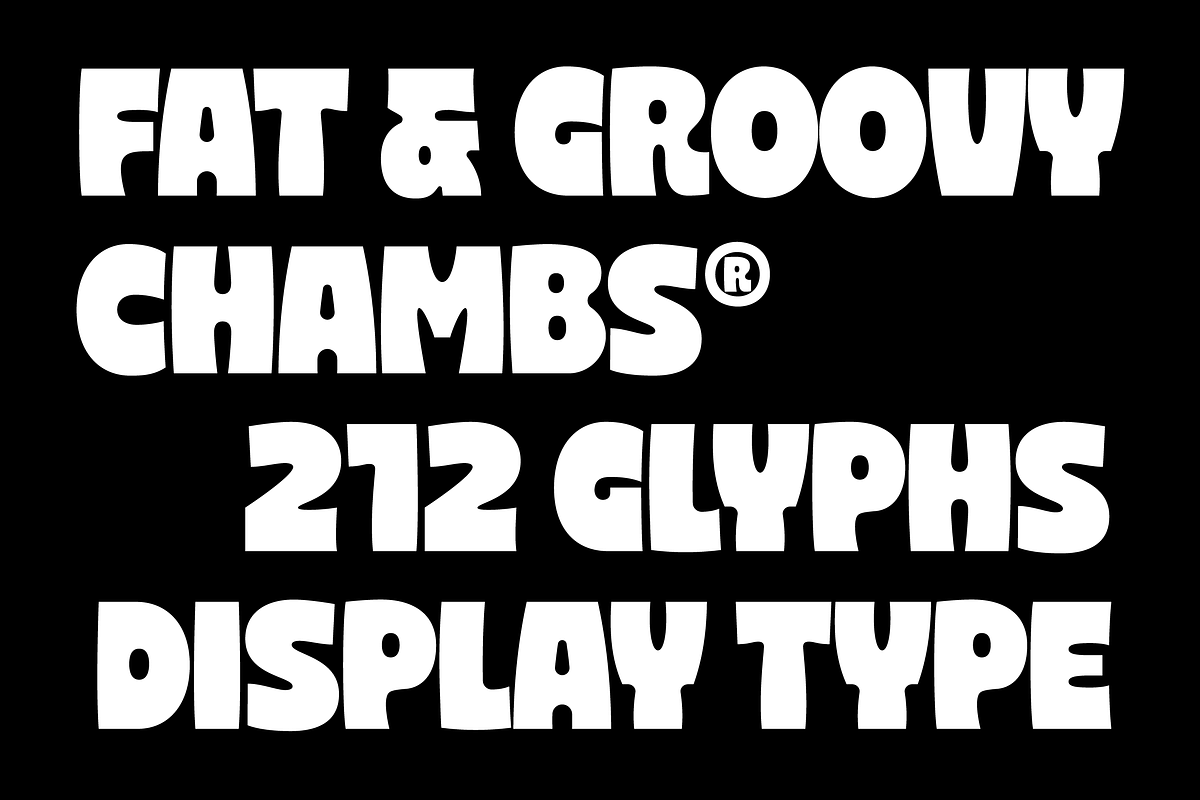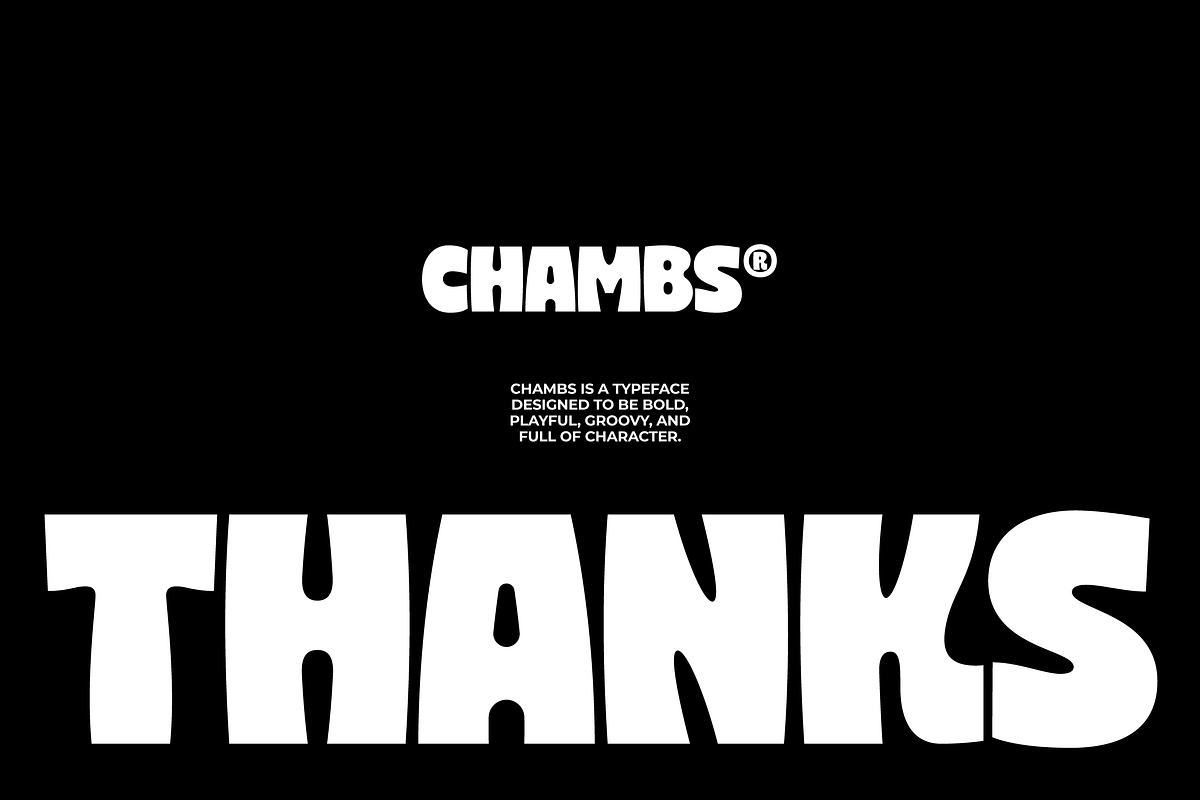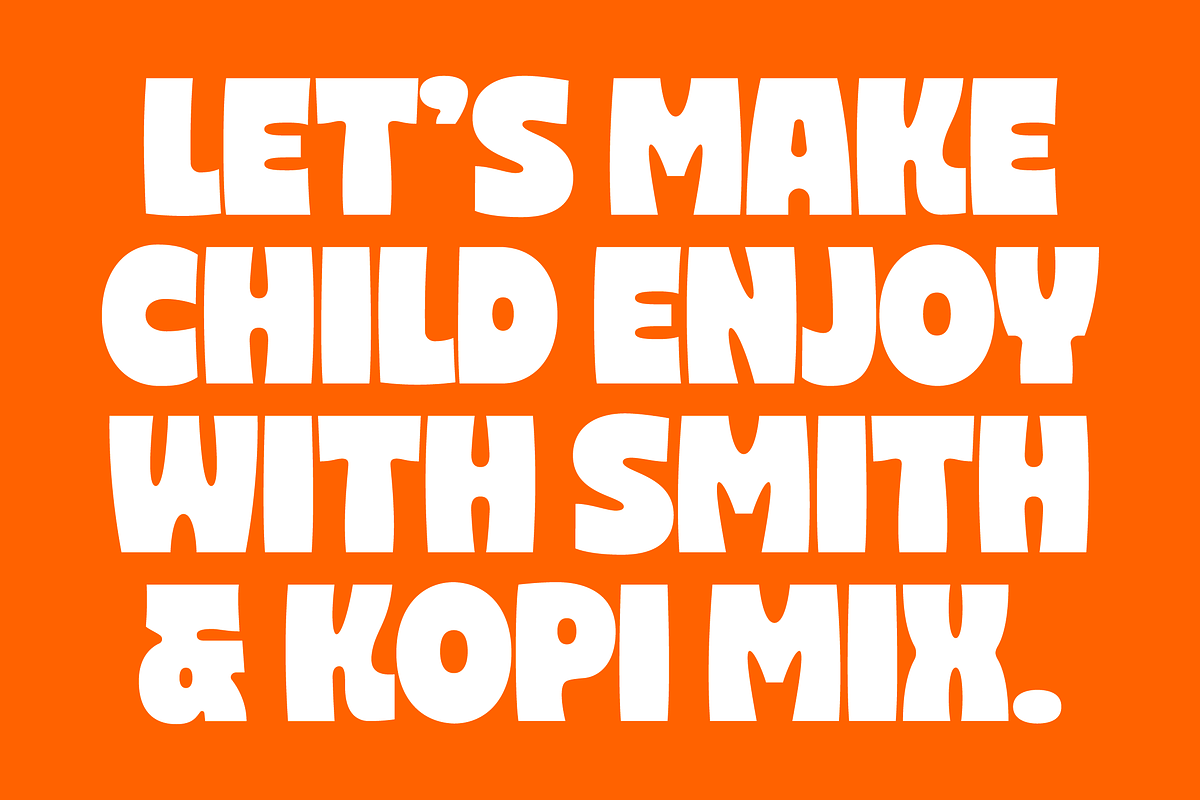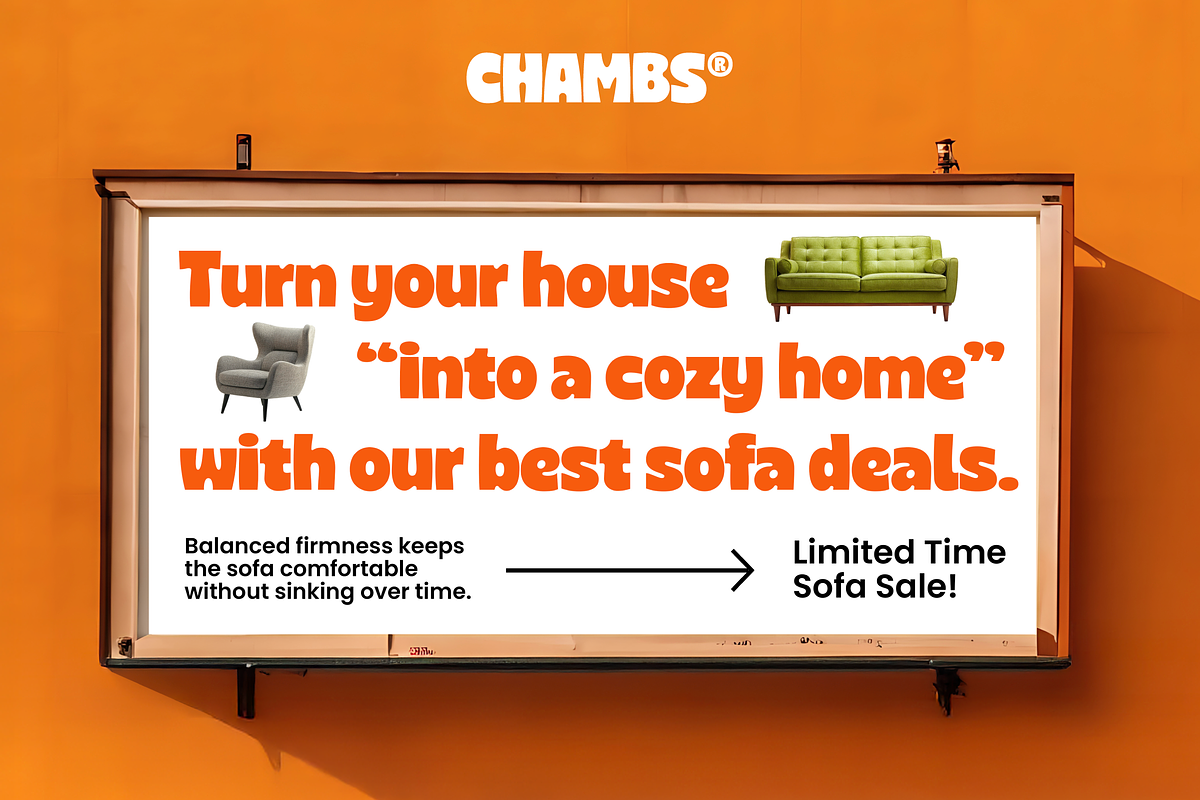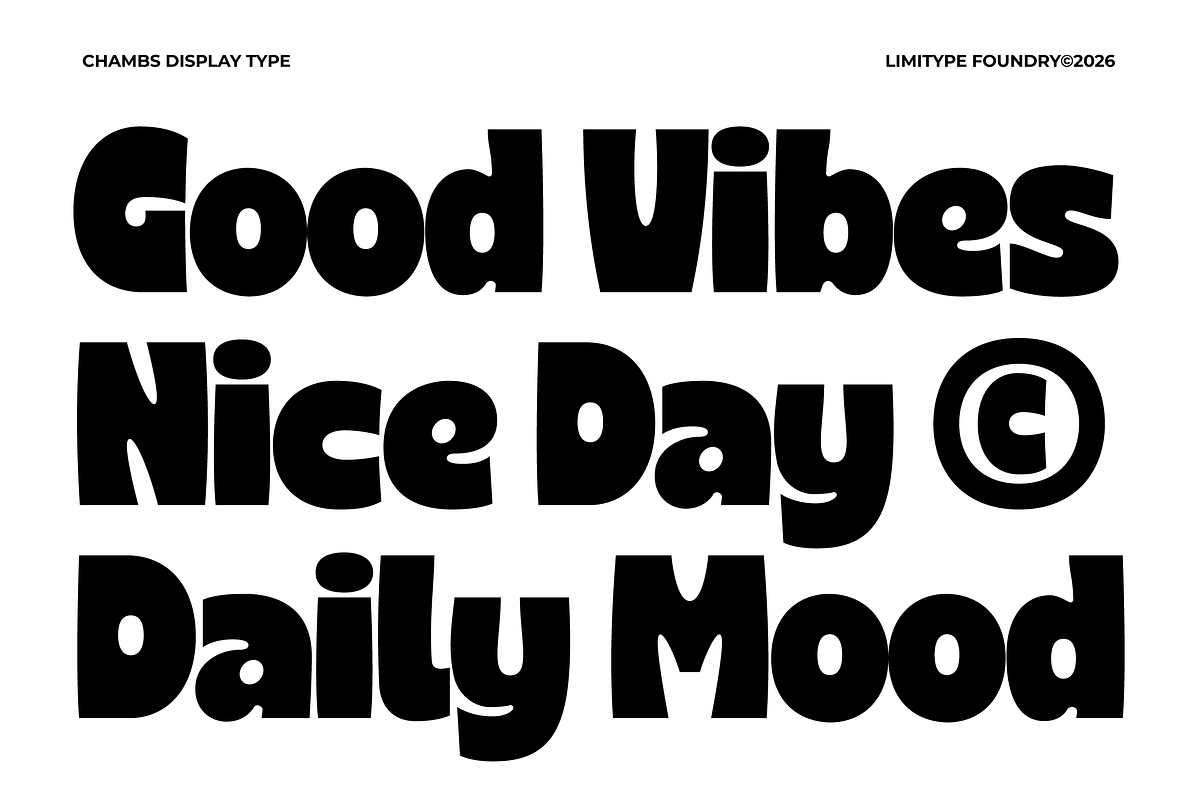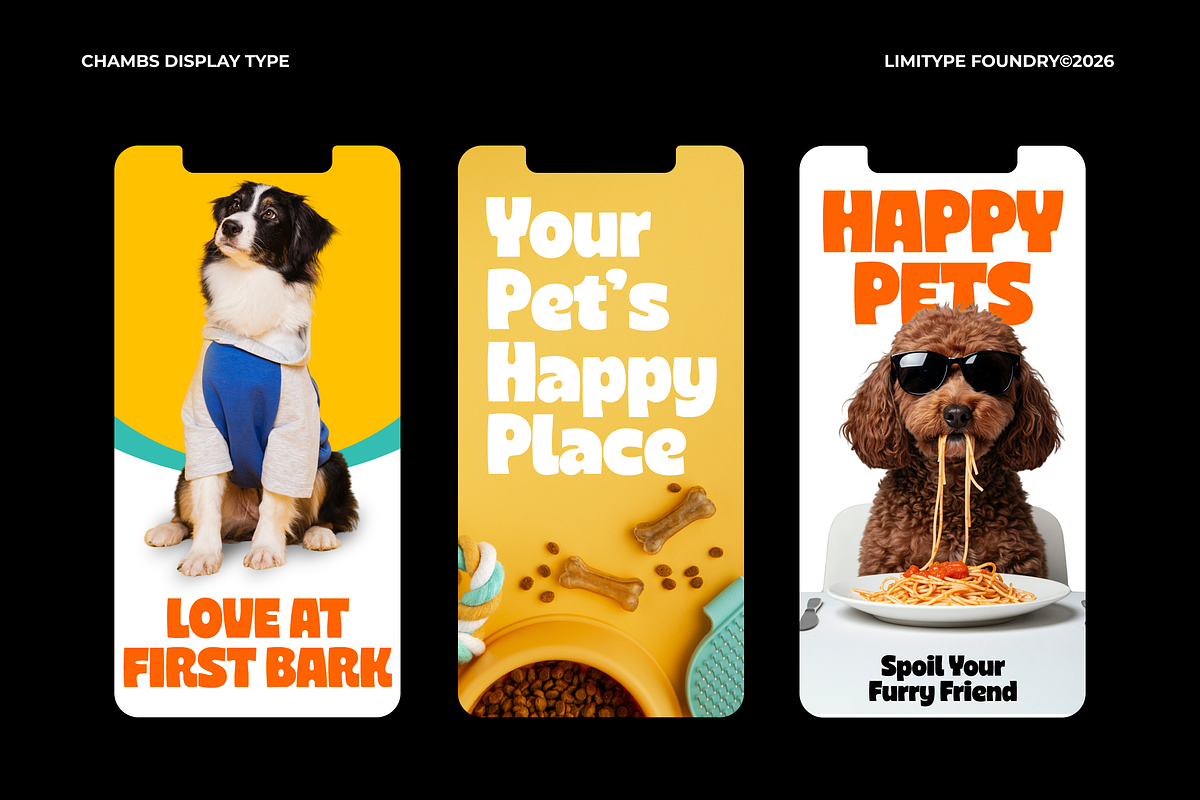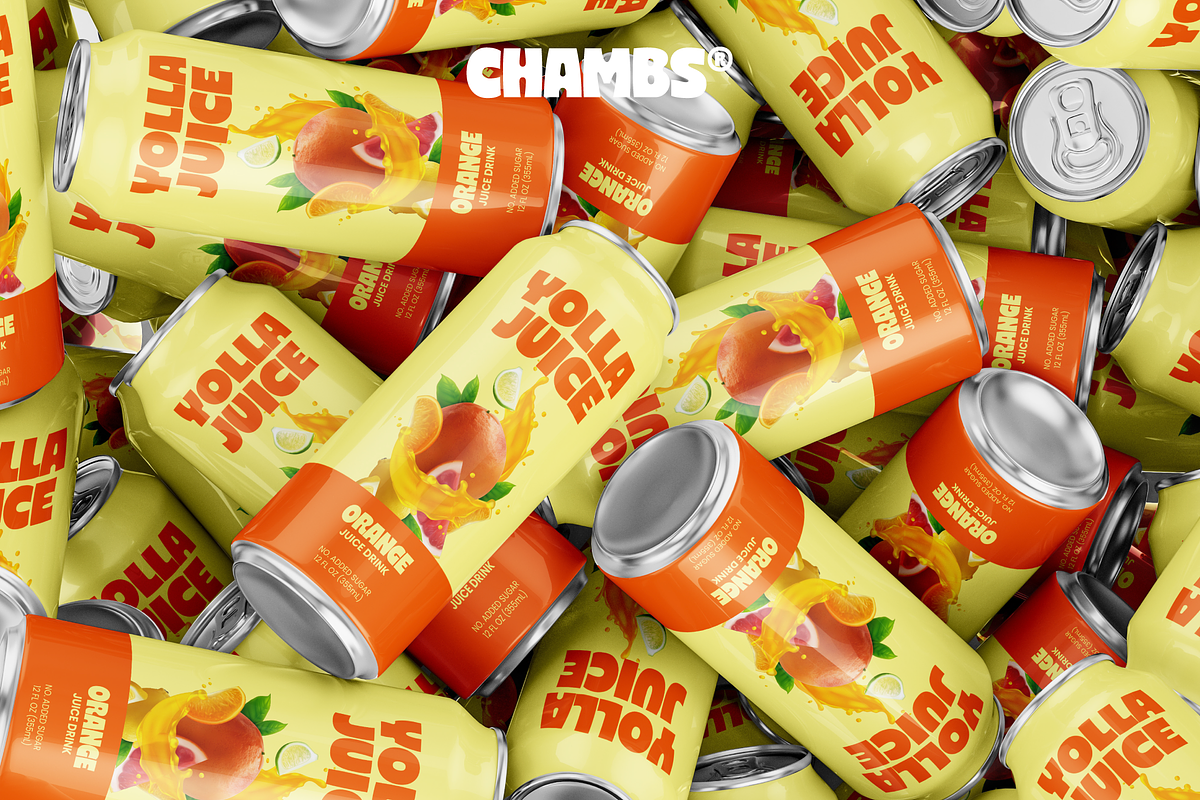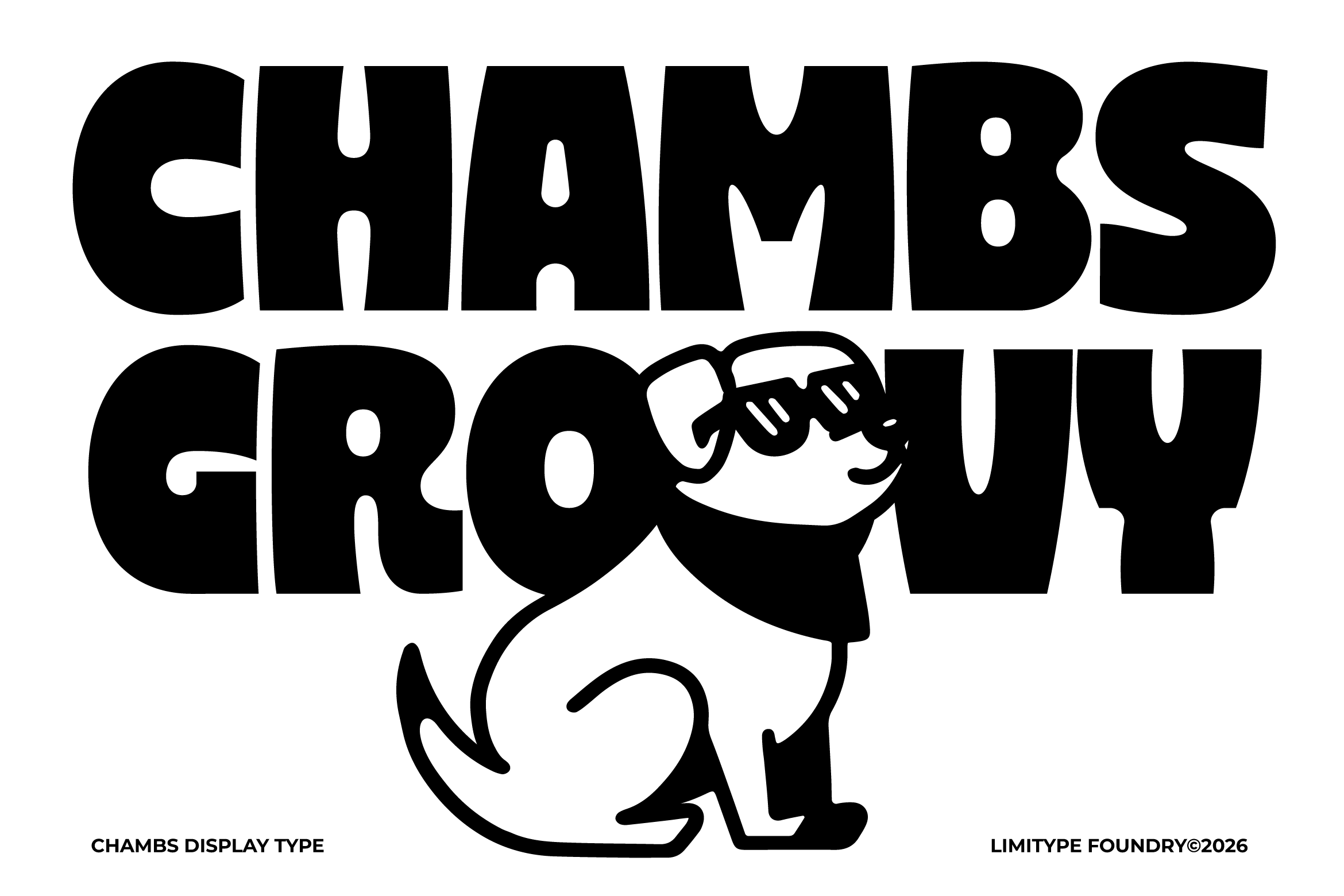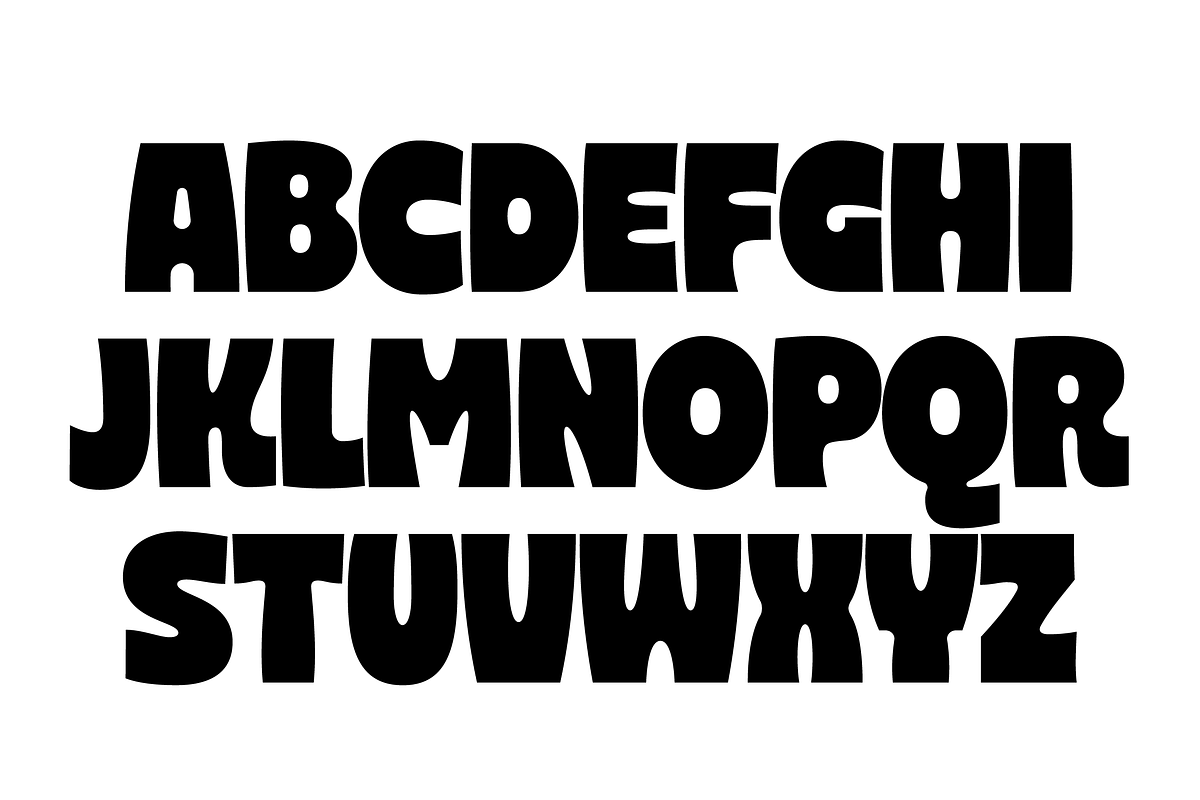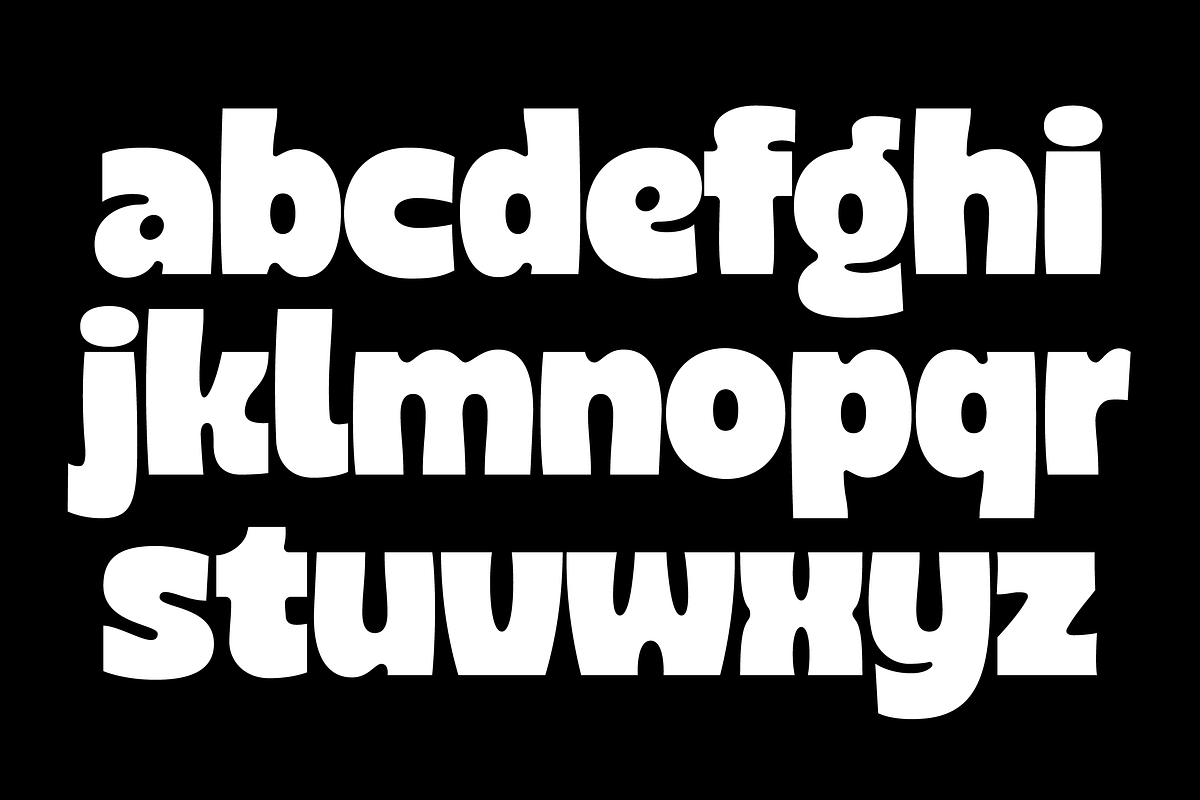
Chambs - Bold Font
Chambs is a bold, chunky typeface with distinctive shapes and unique curves that radiate a strong yet playful energy. This font is highly suitable for visual identity applications, whether for logotypes, posters, covers, branding, packaging, and creative designs that aim to appear bold while remaining fun and confident.